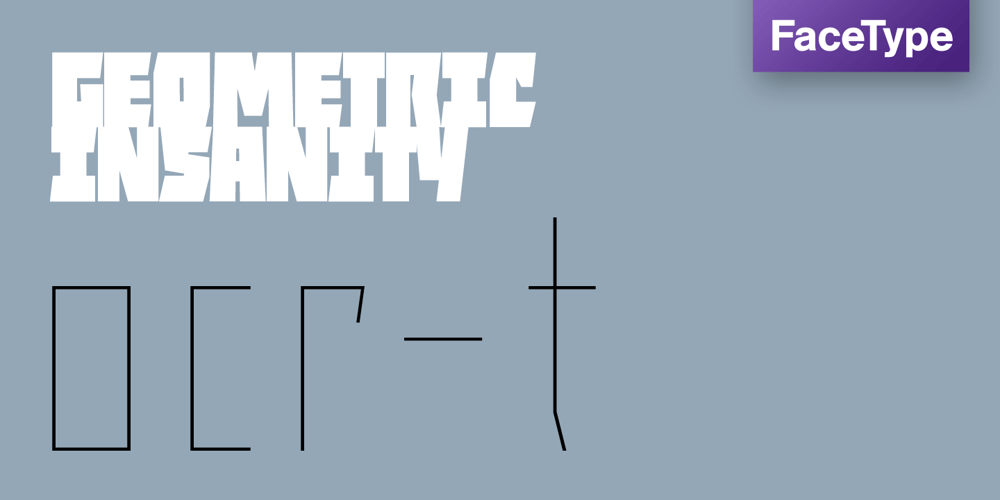
ocr-t Font Family was designed by Martin Tiefenthaler and published by FaceType. ocr-t contains 11 styles and family package options. Being a geometric sanserif ocr-t comes in eleven weights from ultrawhite to infrablack (brightwhite, white, silver, lightgrey, grey, darkgrey, anthracite, black, jetblack). With more than 600 glyphs it covers all your typographic needs and manages to stay at the same place no matter which width you’re using. Its readability and legibility is more than fine although it needs no kerning. The infrablack is really black, in order to achieve this, the form of letters change from darkgrey to anthracite from upright to some kind of upright italic. This also gives opportunity to mix two weights with same colour but different architecture. Find also stylistic sets, alternate letters, lots of bullets, different arrows, hands and well: kind of hearts.